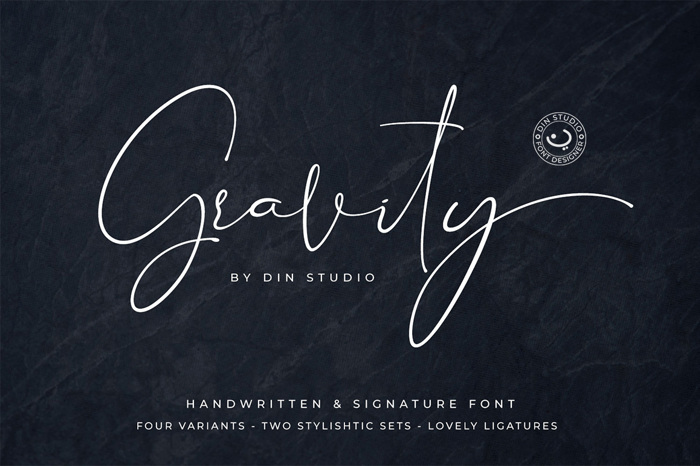
Gravity Font
Gravity Font, a luxury handwritten and signature style. This signature font is one of the best-selling products of Din Studio. With four variants of styles, you can create more signatures and handwriting fonts than you need. Gravity will be great for creating the perfect and unique designs for your branding projects, signatures, quotes, weddings, etc.
Features include:
• Ligatures
• Stylistic Sets
• Swashes
• Multilingual Supports
• Numerals and Punctuations